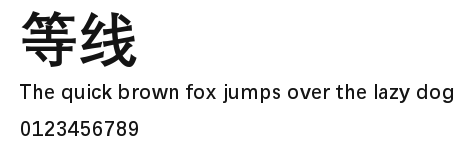
等线 Preview
About 等线.TTF
等线.TTF is a modern, elegant sans-serif font designed for ultimate readability and visual harmony. Perfect for branding, headlines, web design, and print materials.